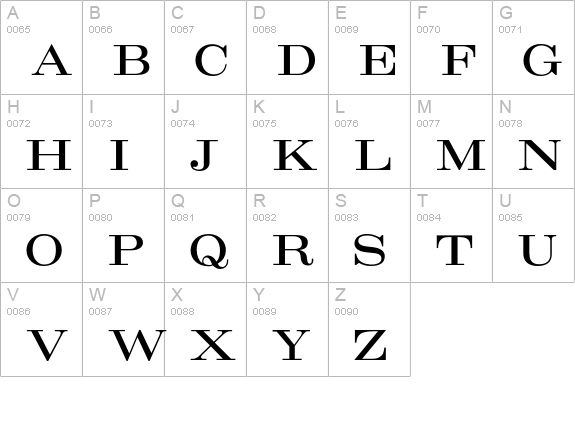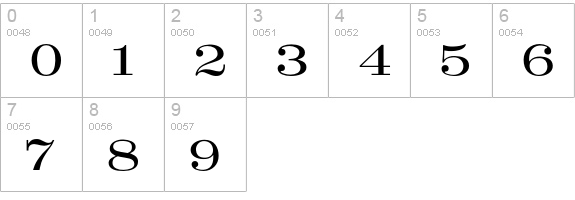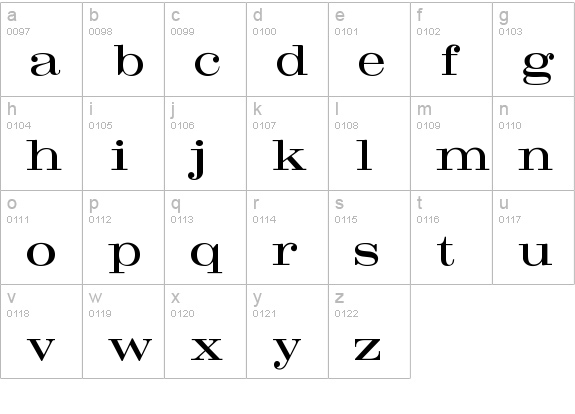
CrawModern Font Details
CrawModern font is a sleek and stylish typeface that exudes a modern and sophisticated vibe. With its clean lines and contemporary design, CrawModern is perfect for a wide range of projects, from branding to editorial design. This versatile font is easy to read and adds a touch of elegance to any layout. The best part? CrawModern is available for free download at FontsMarket.com. You can easily access this stunning font and elevate your designs without breaking the bank. Don't miss out on the opportunity to enhance your creative projects with the timeless appeal of CrawModern font. Download it today and let your creativity shine!